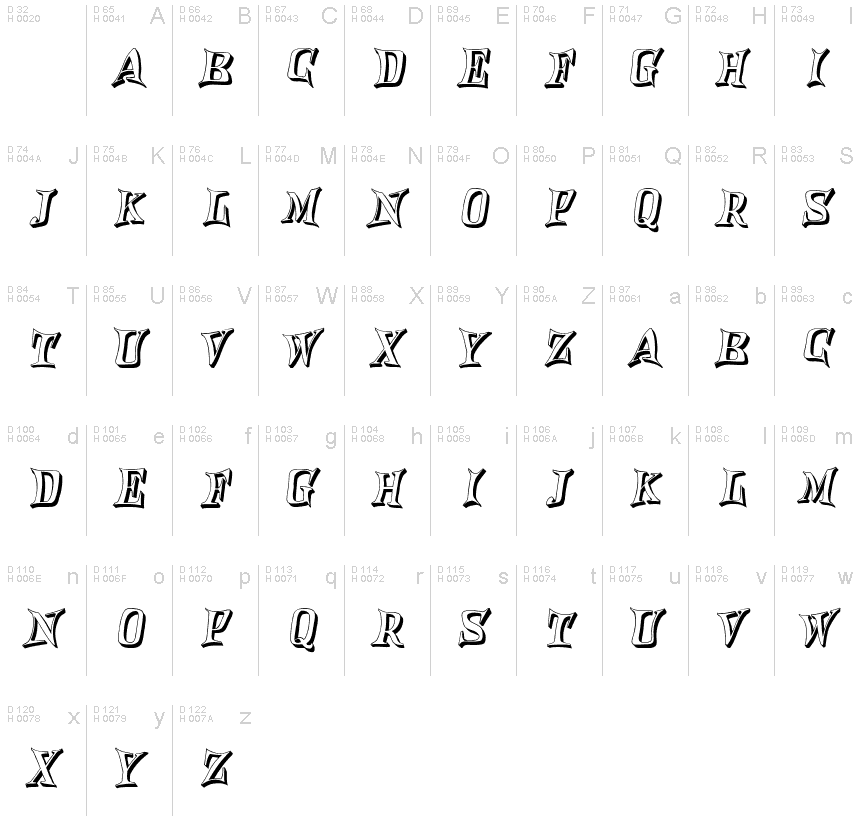
Xiaomi Italic
Xiaomi Italic is a display font designed by Vladimir Nikolic, suitable for daring and unconventional projects that require a touch of creativity. With its distorted style and semi-condensed width, this font is perfect for eye-catching headlines, posters, logos, and branding materials. This unique typeface will add a rebellious edge to any project it's used in, making it ideal for music festivals, streetwear brands or even horror movie posters. Its bold and italicized design will make your message stand out from the crowd while maintaining a sense of sophistication. Let Xiaomi Italic be the bold statement piece in your next project.